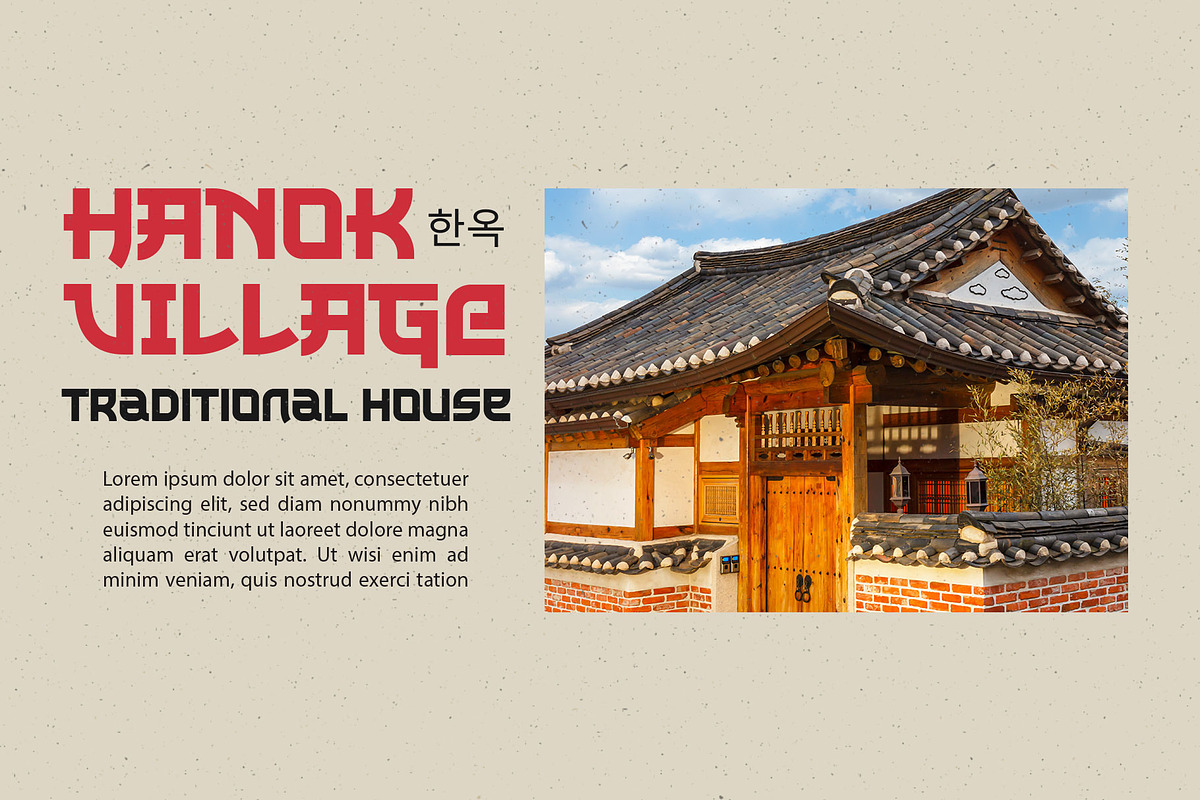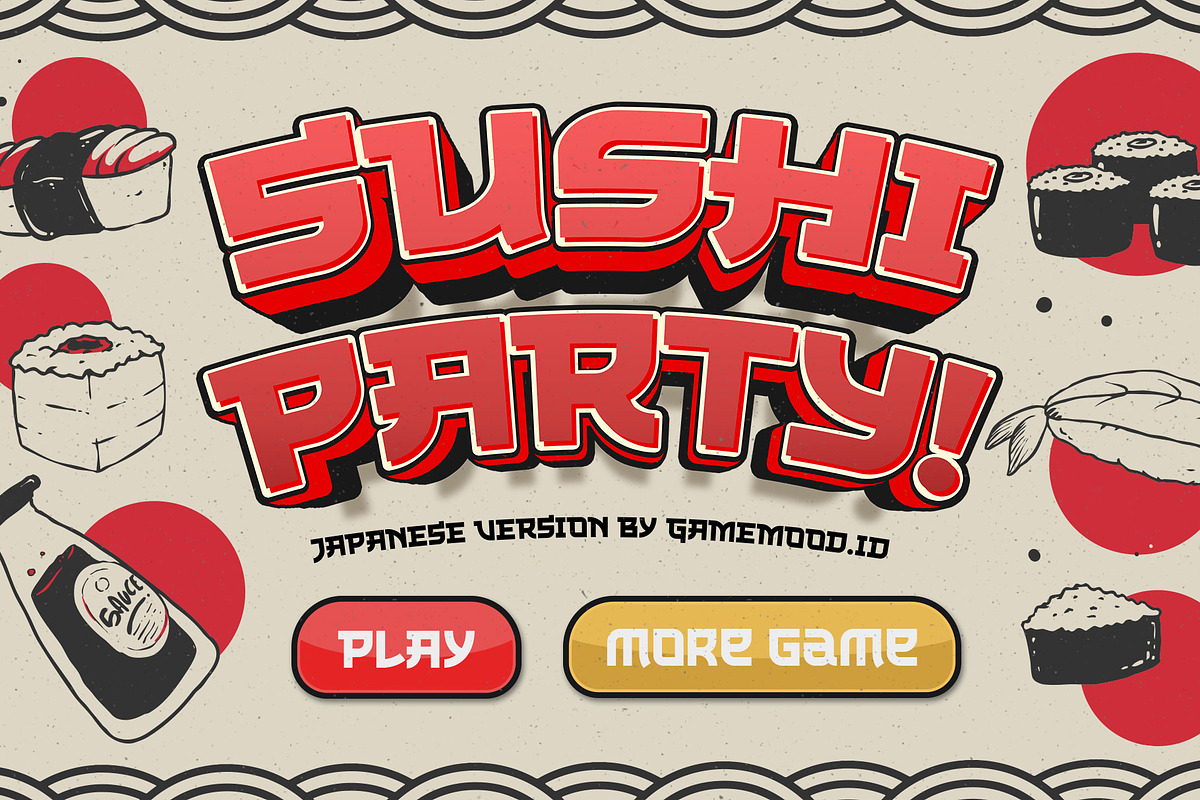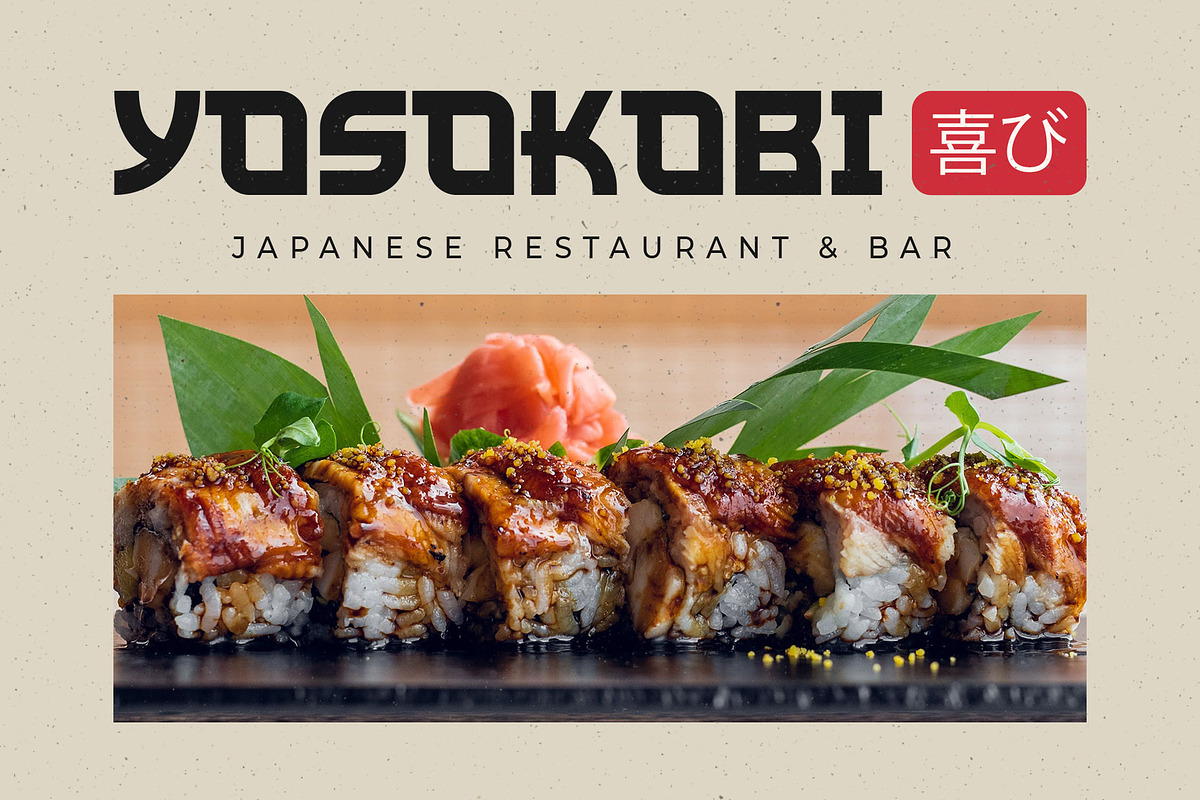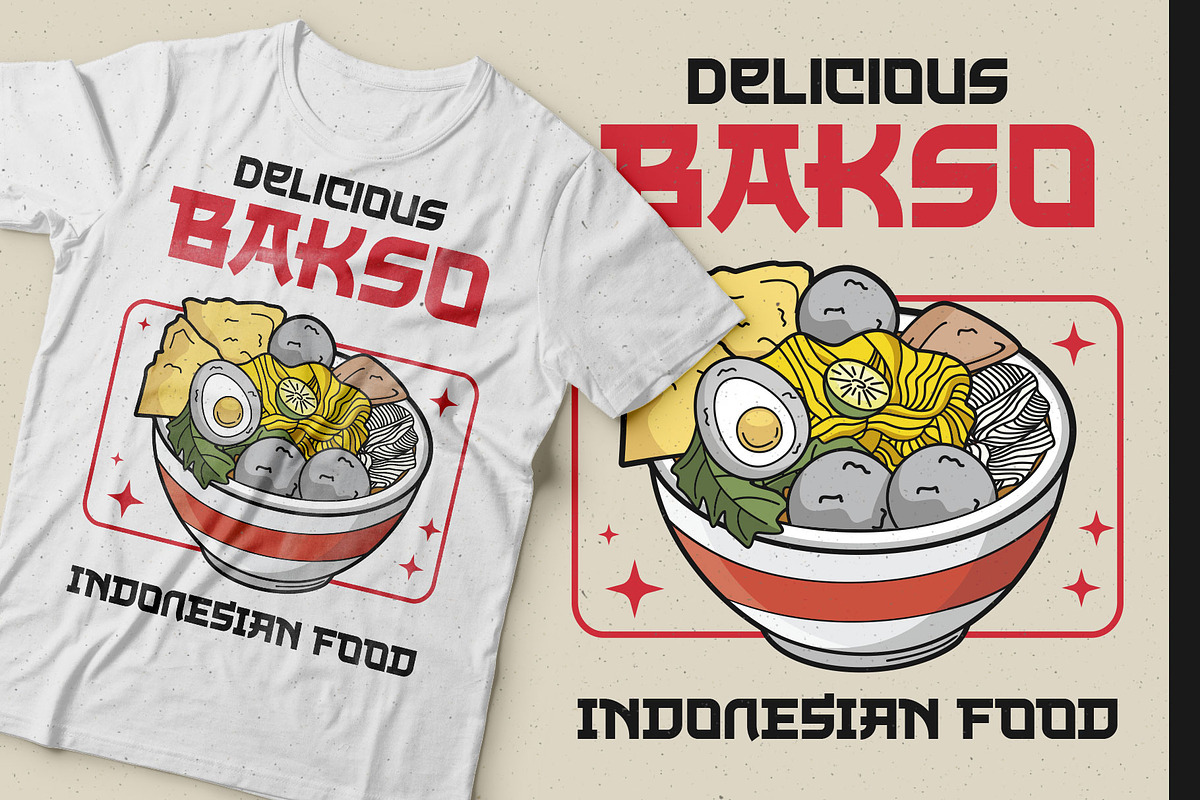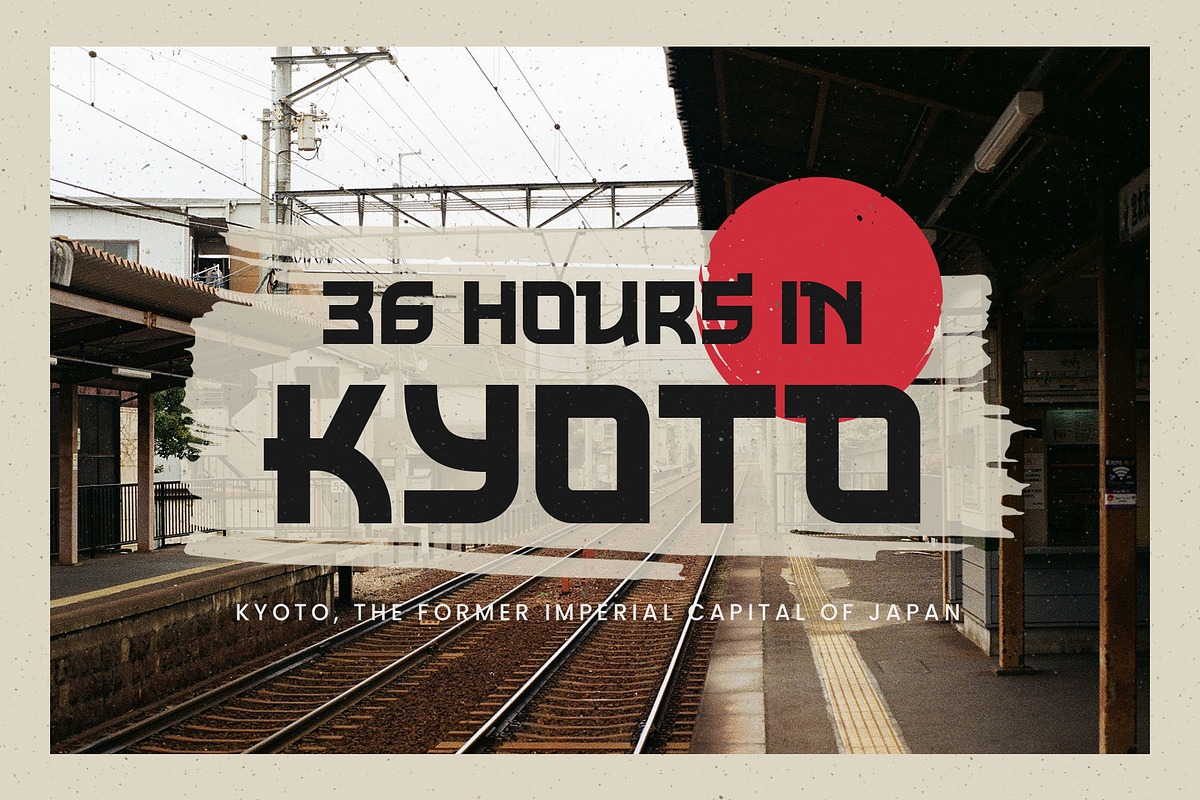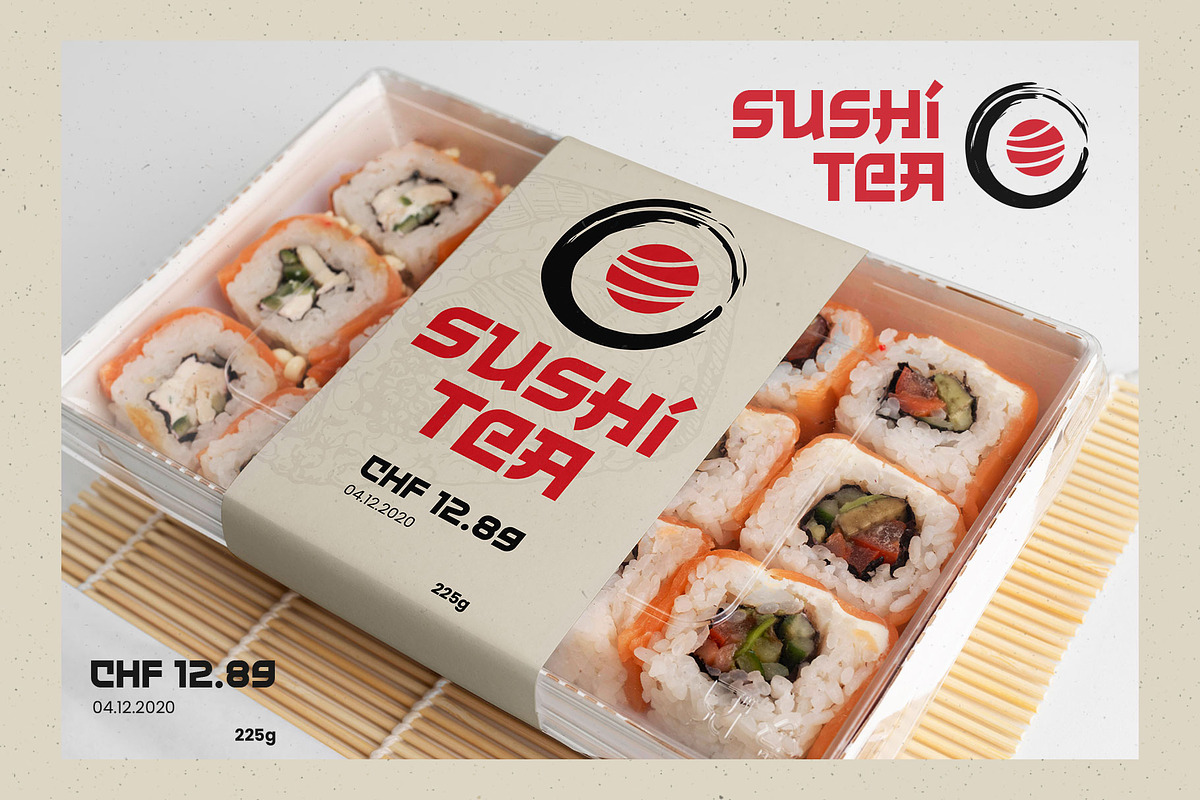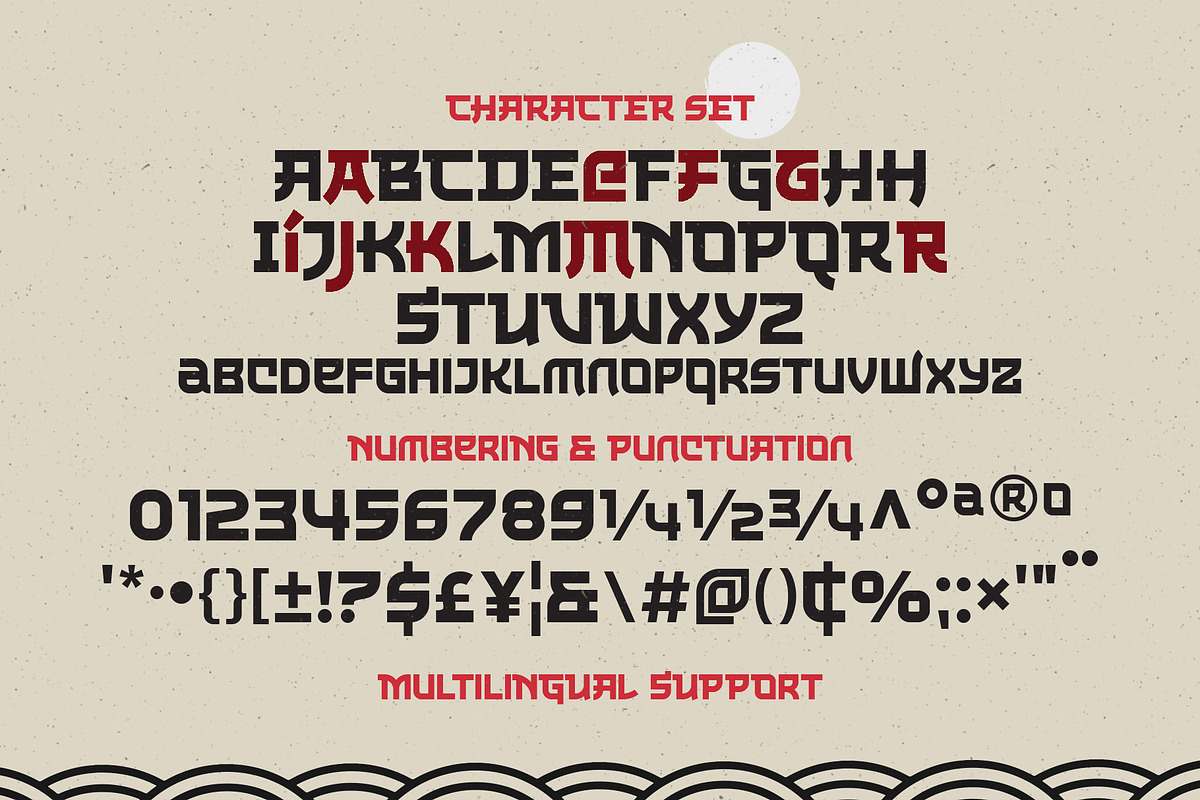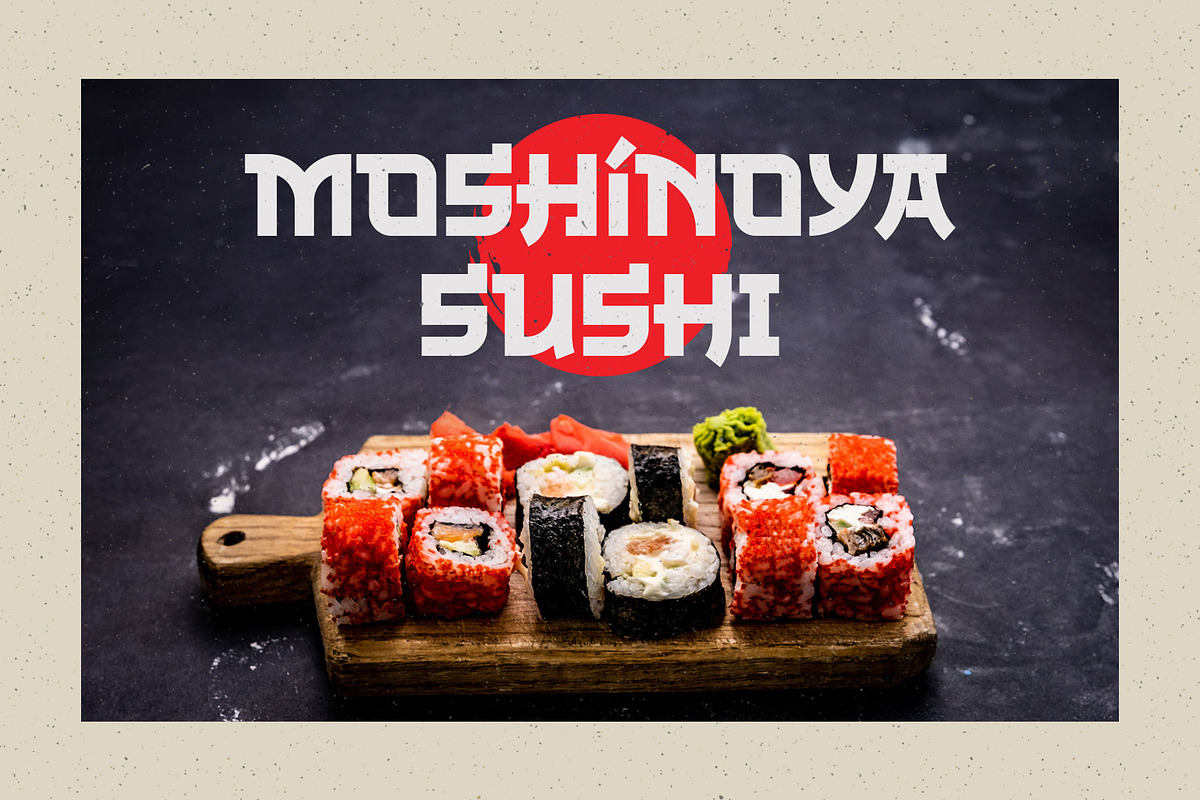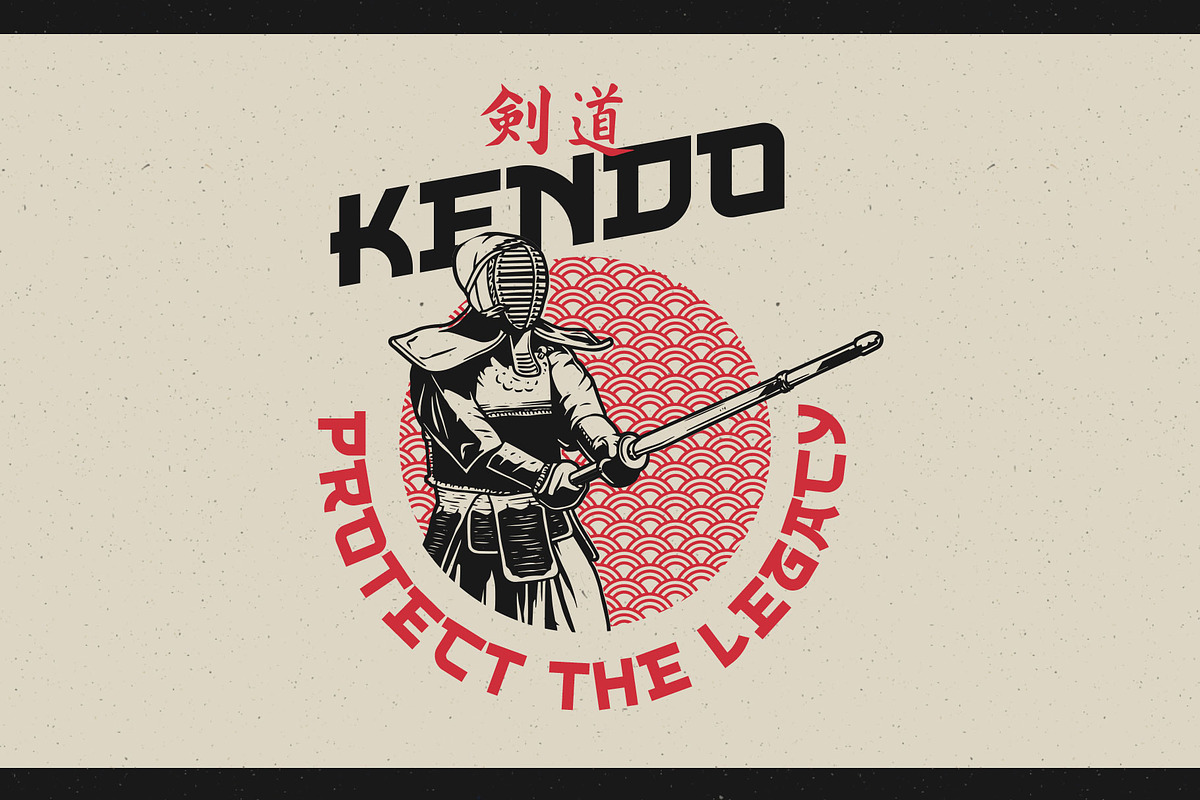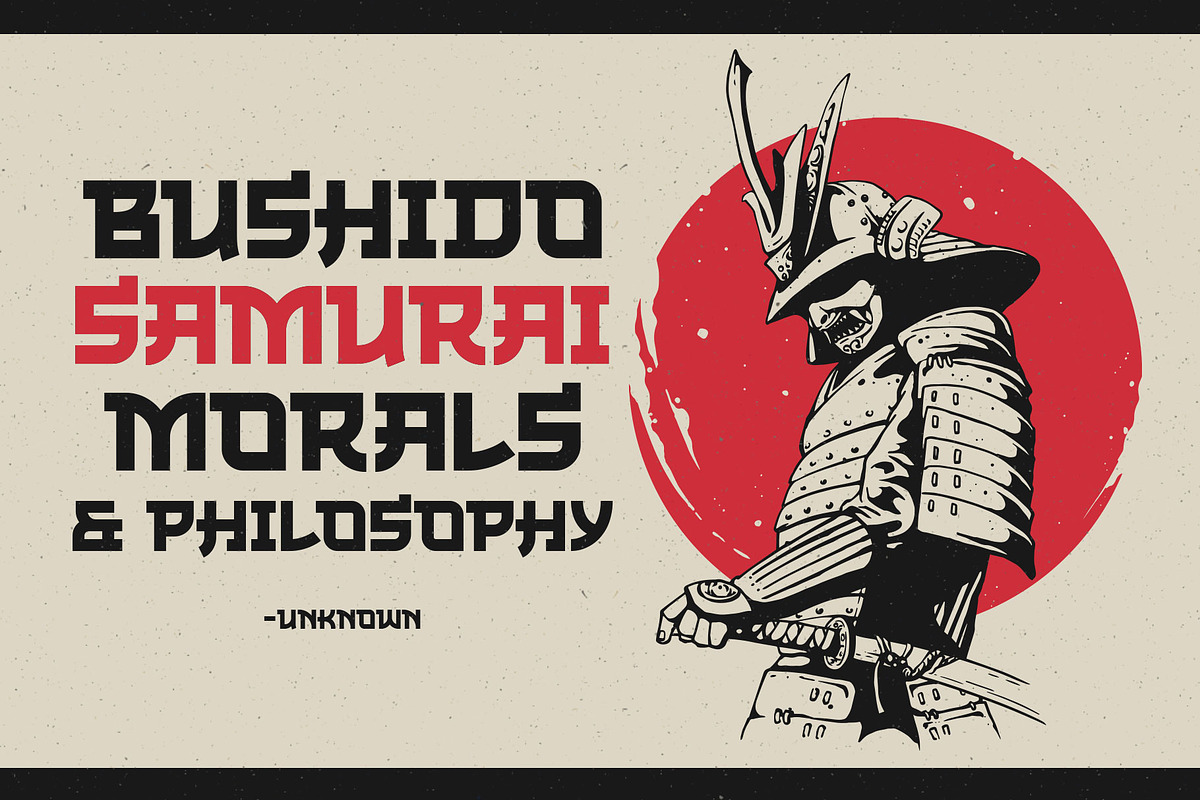
The Last Shuriken - Japanese Style
Konichiwa!
Introducing our brand new font "The Last Shuriken" a Japanese-style typeface. Inspired by modern Japanese food branding and anime title. Designed in a bold stroke, this font is an all-caps font that has the same cap height and different shapes.
The Last Shuriken is perfect for display, especially for Japanese food, title, logo, poster, short quote, movie, games, apparel. Complete with stylistic alternates and PUA Encoded with multilingual support!